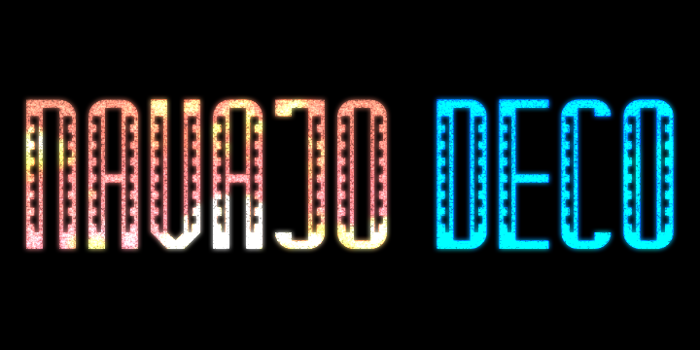
Navajo Deco Font
by Pixel Kitchen
A fusion of art deco- and Navajo-style design. Well, many civilizations used a square zigzag pattern such as this, but "Navajo" always comes first to mind when I look at this design.